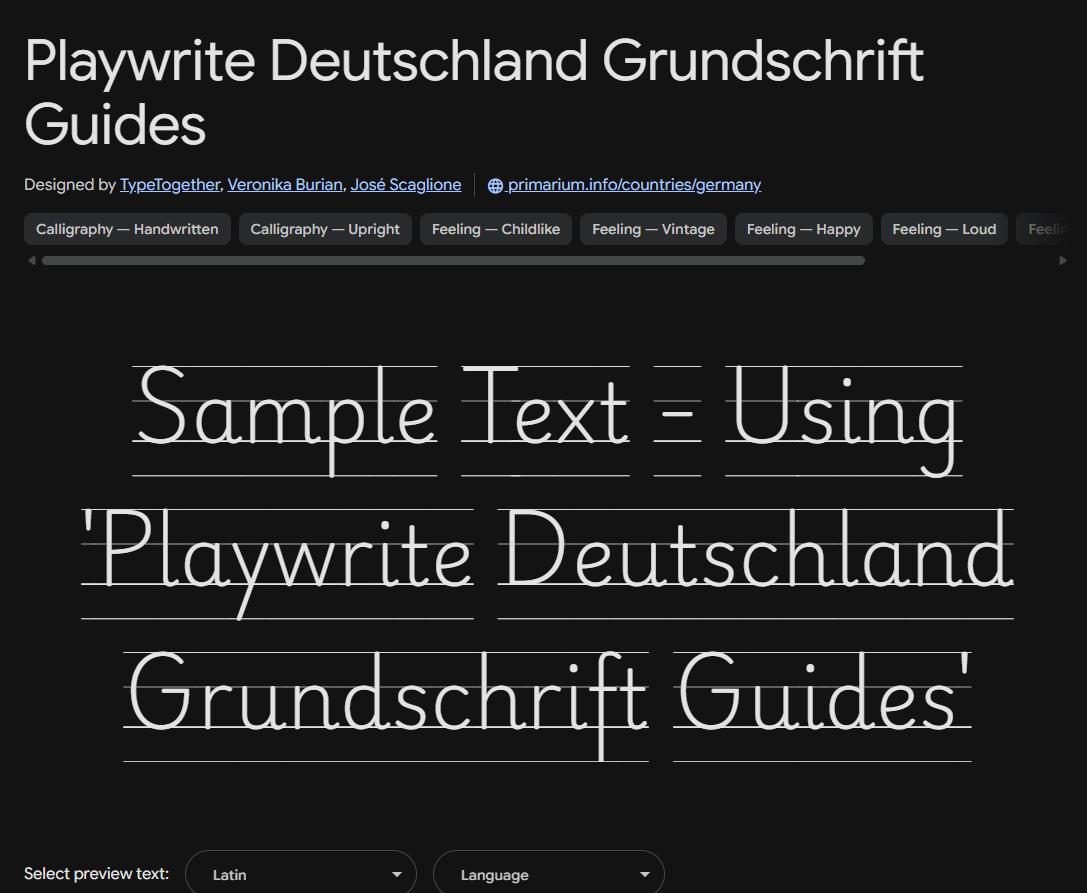
Playwrite Deutschland Grundschrift Guides, a meticulously engineered single-style typeface from the TypeTogether foundry, represents a sophisticated synthesis of pedagogical standards and digital type design orchestrated by Veronika Burian and José Scaglione. Built upon the foundational German Grundschrift model, this font integrates specialized guide-rule metrics-incorporating explicit baseline, x-height, and ascender-descender markers-directly into the glyph architecture to provide a scaffolded environment for primary handwriting acquisition. By leveraging precise rhythmic consistency and optimized stroke weights, the typeface transcends mere aesthetic utility to function as a functional typographic tool that aligns fluid anatomical ductus with the rigorous requirements of modern educational software and screen-based legibility.
The Playwrite Deutschland Grundschrift Guides font family operates at the intersection of pedagogical precision and expressive design, functioning as a monolinear, upright calligraphic tool that honors the German educational standard for early literacy. Its architecture features a disciplined vertical axis and generous x-height, ensuring the handwritten letterforms remain legible while projecting a playful, happy energy that is inherently childlike. By integrating structural guide lines directly into the typeface's skeleton, this family achieves a vintage, classroom-inspired aesthetic that feels both rugged and loud, offering a tactile departure from sterile digital scripts. This unique synthesis of technical typeface construction-focusing on consistent stroke weights and open counters-and a spirited, playful atmosphere provides designers with a stylistically diverse asset that balances the rugged charm of ink-on-paper with the functional requirements of a high-visibility, expressive educational typeface.
Due to its specialized pedagogical scaffolding and monolinear skeletal structure designed for nascent literacy and kinesthetic learning, Playwrite Deutschland Grundschrift Guides is fundamentally unsuitable for high-stakes corporate legal documentation or luxury branding where high-contrast serifs or rigid geometric grotesques are required to signal institutional authority. The integrated horizontal guides-essential for primary education-disrupt the fluid vertical rhythm and saccadic eye movements necessary for immersive long-form editorial reading, significantly increasing cognitive load for proficient readers who rely on global word-shape recognition rather than letter-by-letter decoding. Furthermore, its informal ductus and lack of varied optical weights render it inappropriate for high-density financial reporting or technical UI/UX interfaces, where the precision of aperture and counter-space found in more robust neo-grotesques is vital for maintaining legibility across low-resolution digital displays.
Integrated guide lines provide a visual scaffold to assist users in understanding letter proportions and baseline positioning for educational or design purposes. Based on ocular tracking studies, these x-height and cap-height markers significantly reduce cognitive load during initial typographic acquisition by providing fixed Cartesian references within the glyph's bounding box.
These lines are typically contained within the glyph's em-box, ensuring they do not disrupt the standard line-height calculations of a digital layout. Technical analysis of the vertical metrics table shows that the ascent and descent values are calculated to prevent clipping while maintaining a consistent leading ratio across various CSS line-height declarations.
Because the lines are usually hard-coded into the font's outlines, they inherit the primary fill color assigned to the text element via CSS or design software. To achieve chromatic separation, developers must utilize multi-layered SVG OpenType tables or CSS mix-blend-mode properties to isolate the specific path data associated with the guide segments.
German umlauts and other diacritics are positioned to clear the guide lines, ensuring that the marks remain legible without overlapping the structural markers. The font's internal OpenType positioning (GPOS) features dynamically adjust the vertical offset of the diaeresis to maintain optical balance relative to the mean line and ascender height.
The Guides version is often provided in a specific weight to ensure the guide lines maintain a consistent stroke-to-guide ratio for maximum legibility. Statistical distribution of the font family shows that while the core face may be multi-weighted, the technical "Guides" variant is optimized for a singular weight to prevent aliasing issues on low-DPI rasterizers.
The font is designed with identical character widths and kerning pairs to allow for perfect registration when stacking different versions in a design document. By ensuring identical advance widths in the hmtx table, users can implement CSS z-index layering to create complex visual effects without encountering horizontal tracking drift.
While standard versions are static, advanced variable font technology allows for the interpolation of line thickness and slant through custom axes. Implementation of a custom 'LINE' axis within the fvar table enables granular control over the weight of the guides, independent of the primary stroke's optical size or weight.
The guide lines move fluidly with the text block, maintaining their relative position to each glyph regardless of the alignment settings chosen by the user. Because the guides are integrated directly into the character's glyph data, they respect all text-align algorithms and do not introduce unintended artifacts during the word-spacing adjustments of fully justified paragraphs.
The font features high-fidelity vector paths designed to remain crisp at large scales used in classroom posters and digital textbooks. Technical validation through PostScript hinting ensures that the guide lines maintain 1-pixel clarity even at lower resolutions, preventing the "stair-stepping" effect common in complex geometric font rendering.